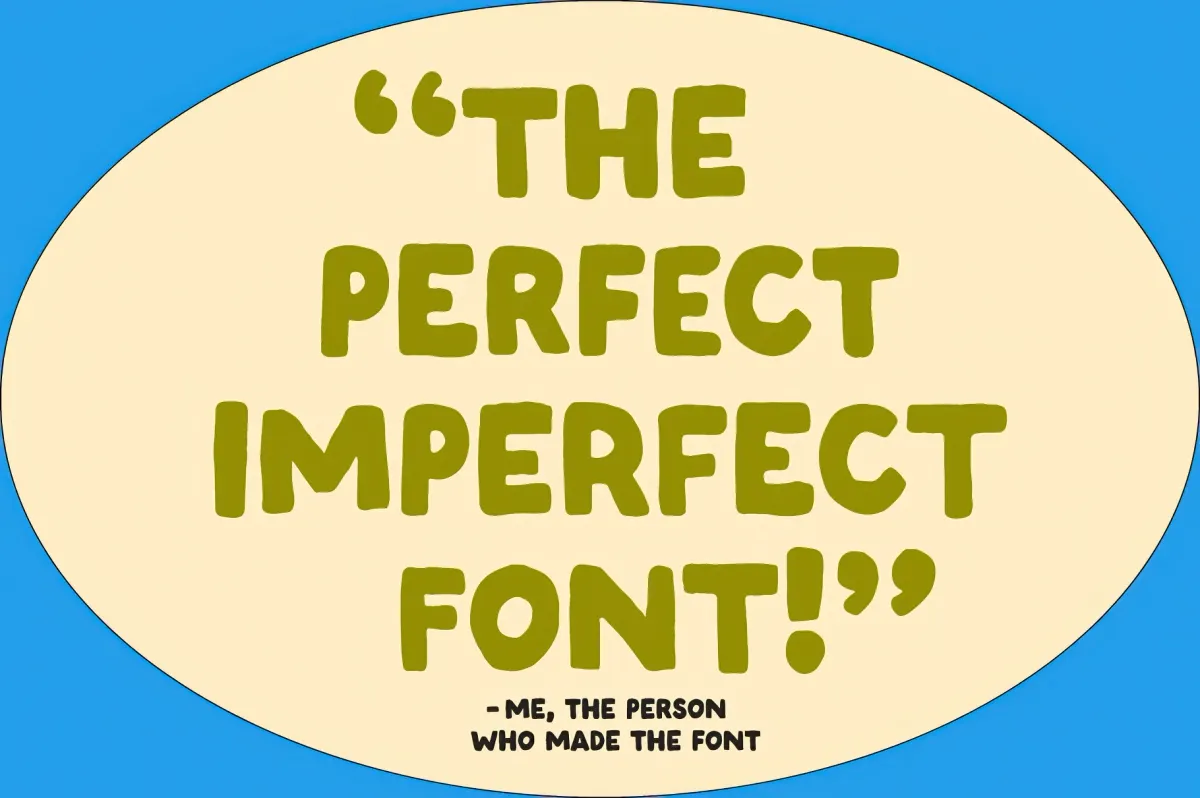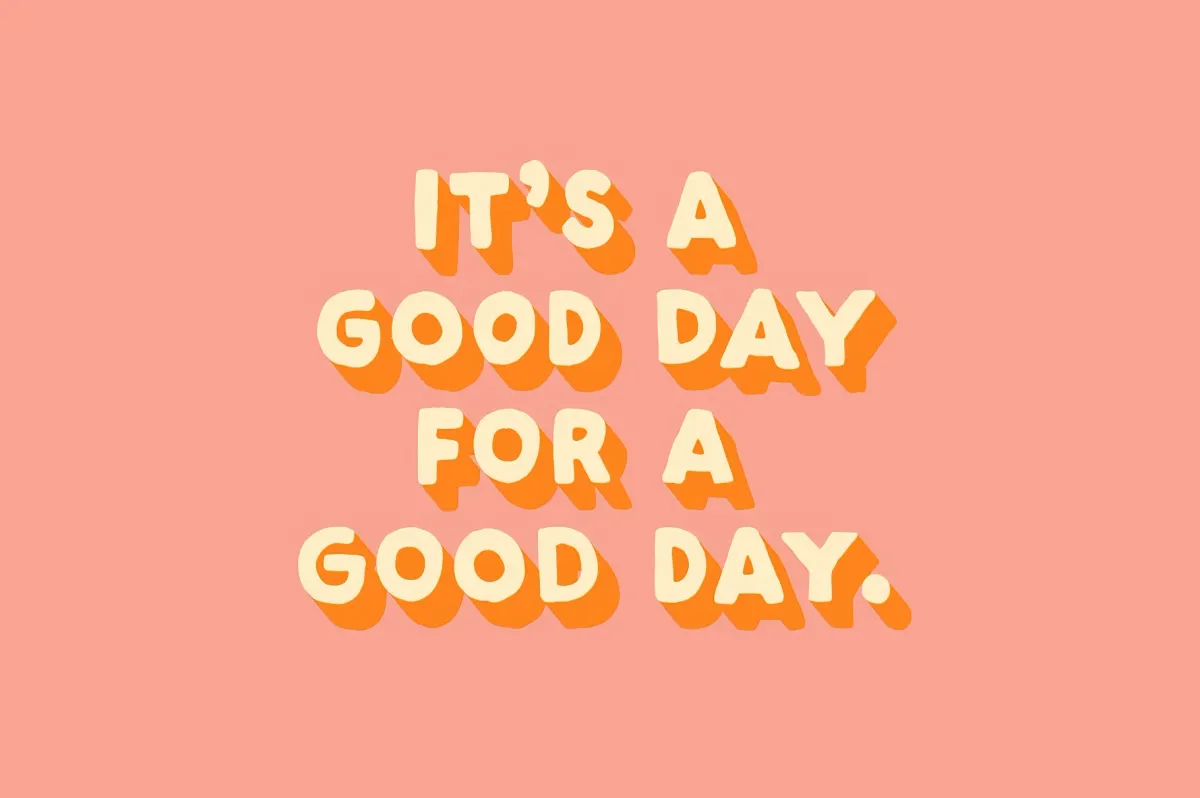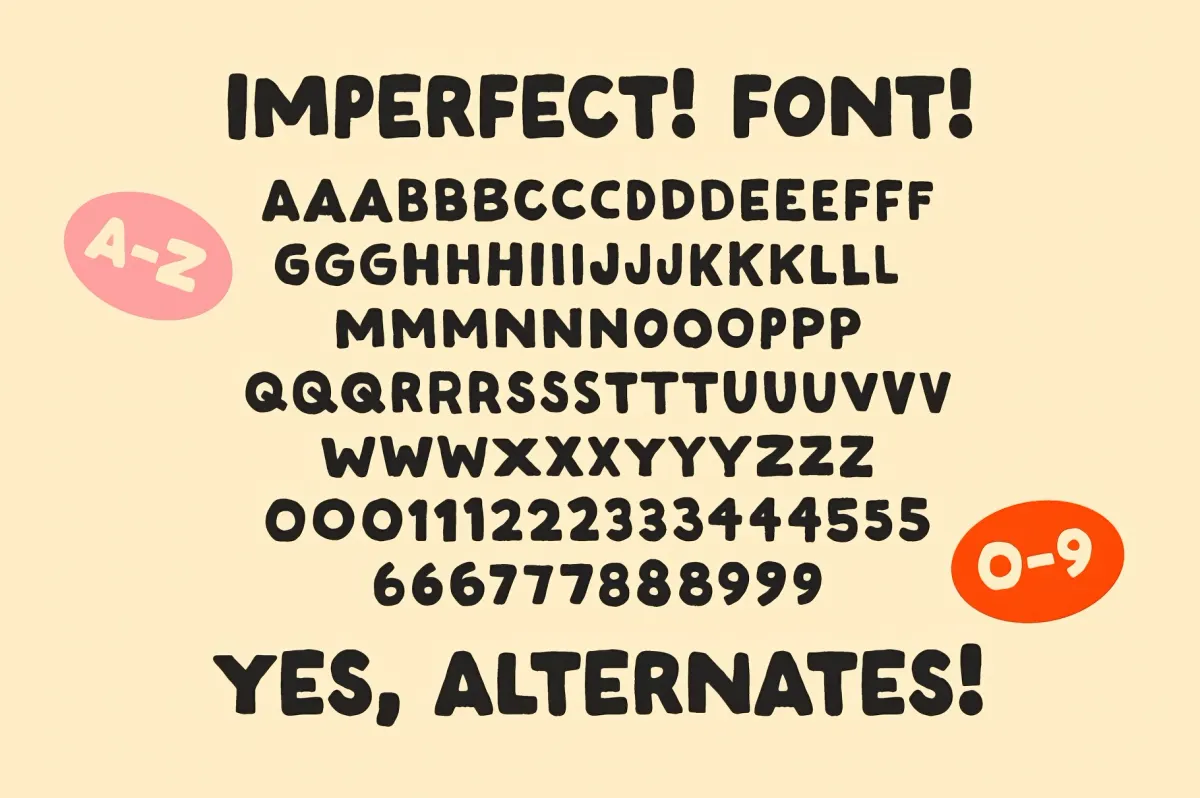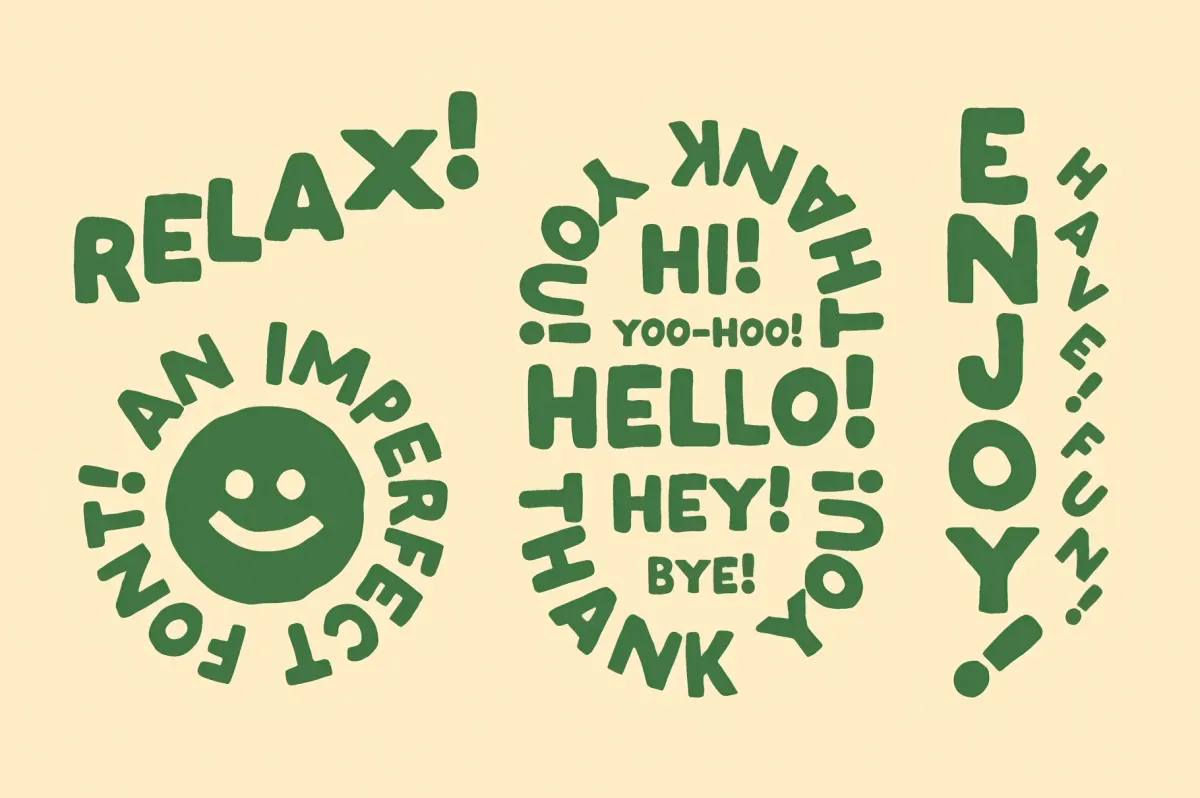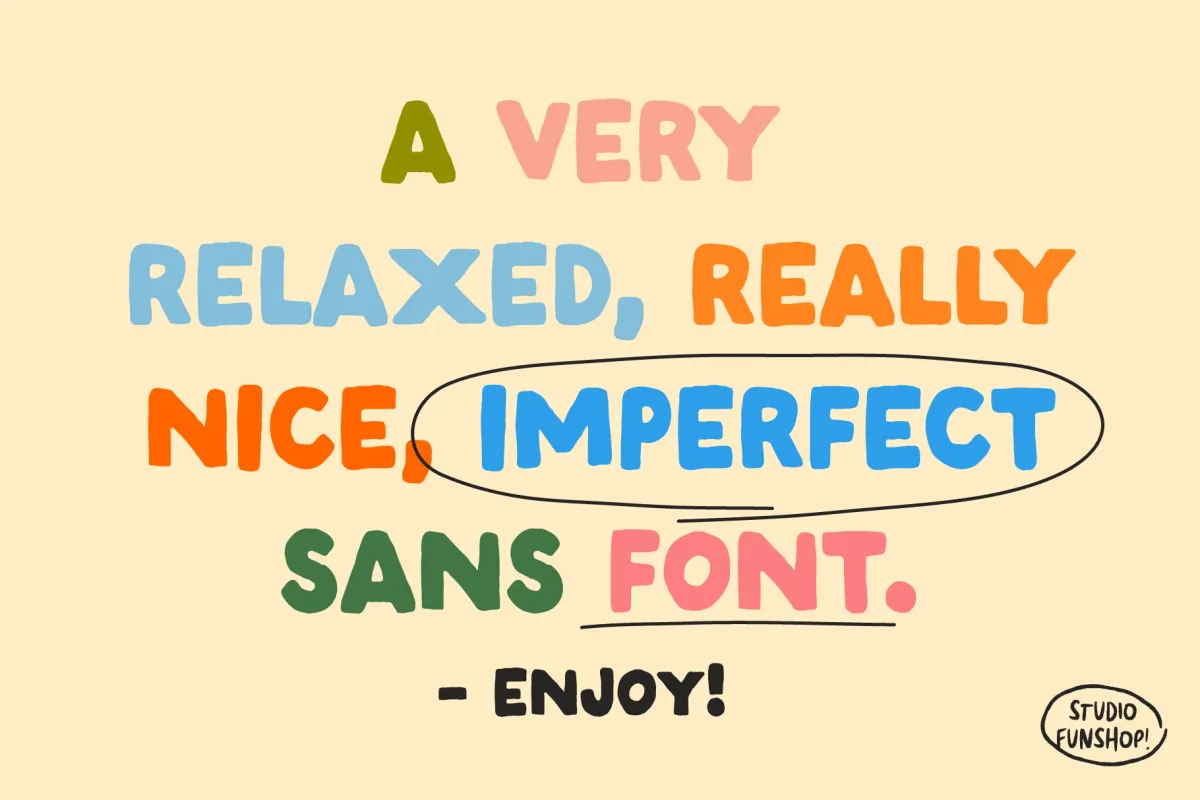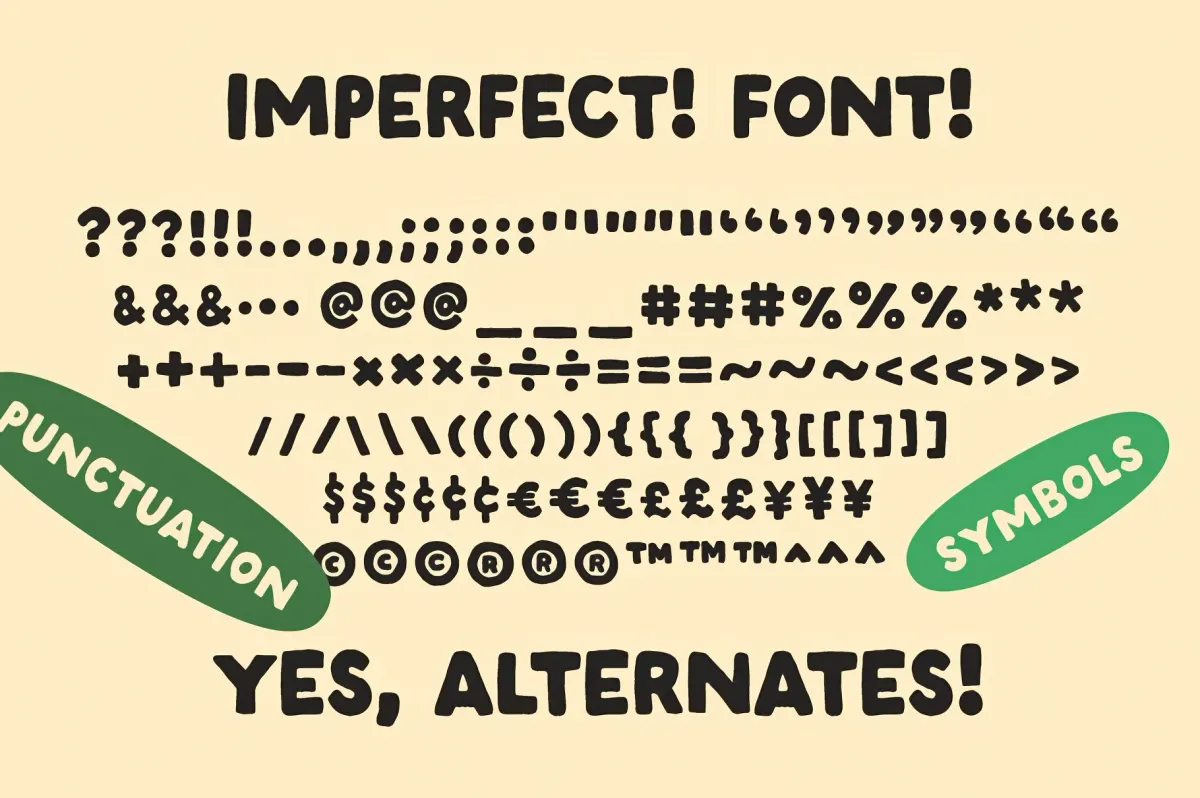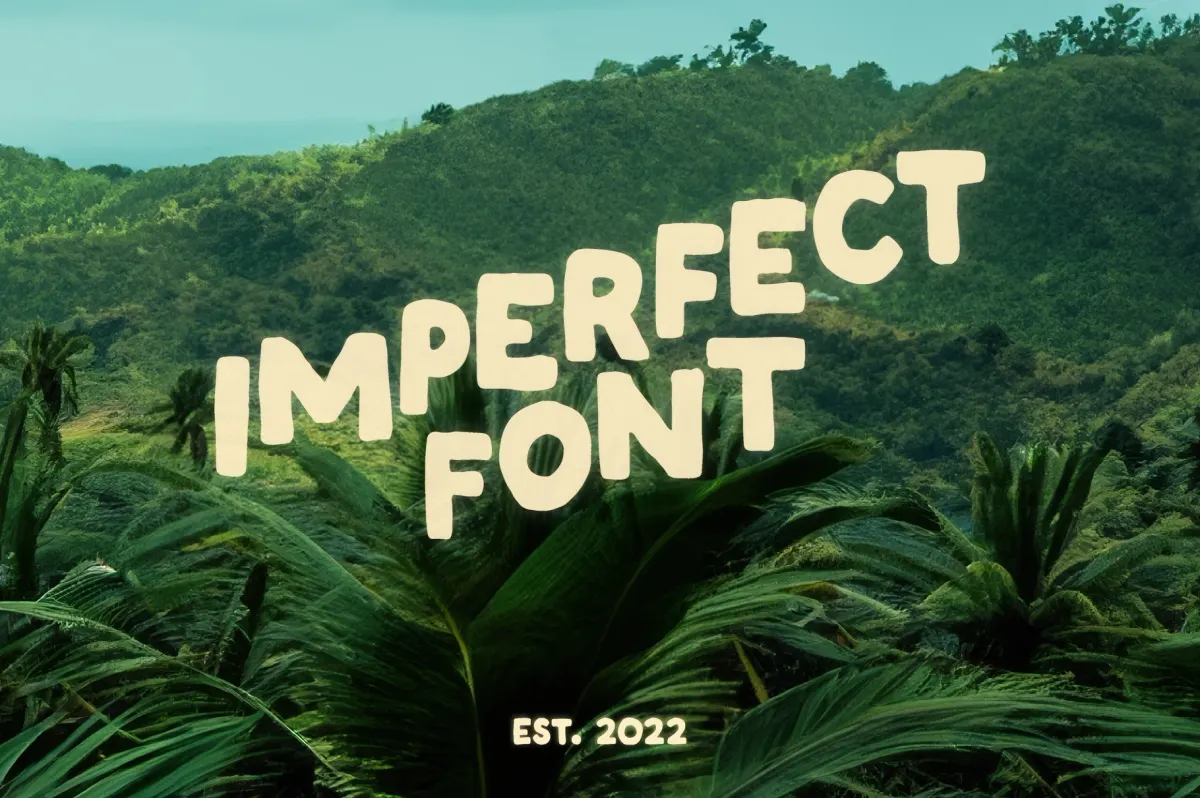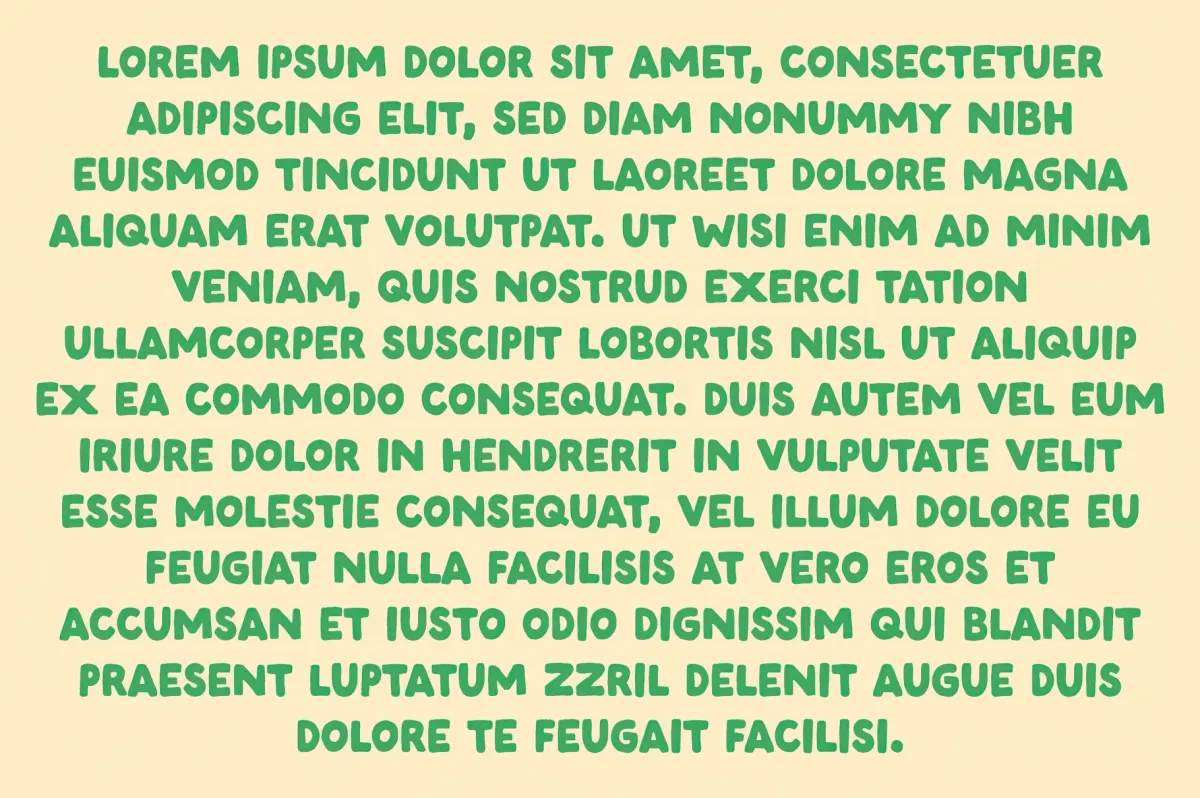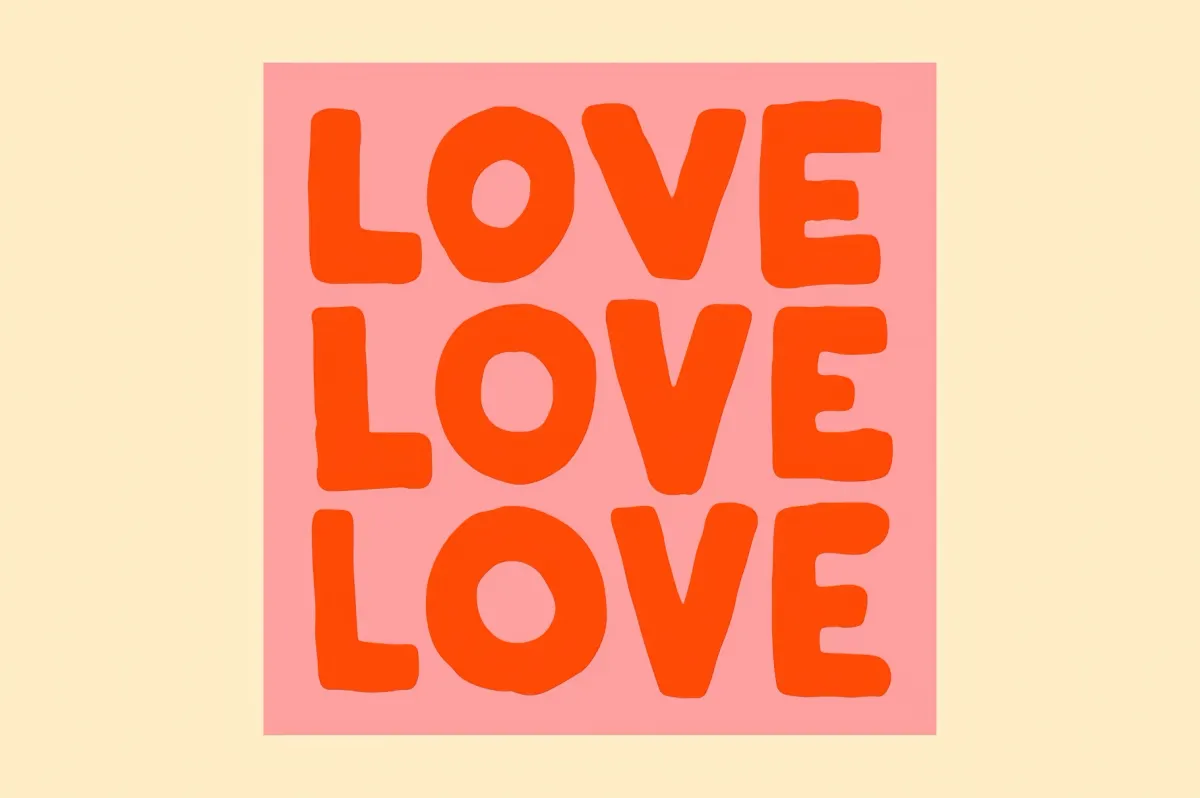
Imperfect! - A Handwritten Sans Serif
This handwritten sans serif picks up the spirit of vernacular print, casual shop signs, notebook scribbles, and off-register vintage lettering. Its hand-drawn forms recall the charm of imperfect ink and paper texture.
Imperfect! celebrates the visual legacy of handmade communication. That gives it an easy nostalgic presence: approachable, graphic, with enough simplicity to stay versatile across modern layouts.
- Branding and logos — artisanal goods, vintage-inspired labels, small creative businesses, handmade product lines.
- Packaging design — soap wraps, candle labels, tea boxes, paper goods, food packaging.
- Posters and signage — markets, workshops, pop-ups, café boards, handmade event materials.
- Merchandise — totes, mugs, shirts, badges, art prints, notebook covers.
- Crafts and creative projects — collage work, printable tags, DIY branding, memory books, labels.
- Uppercase letters A–Z;
- Numbers, symbols, and punctuation;
- Alternates.